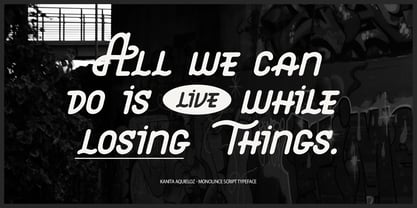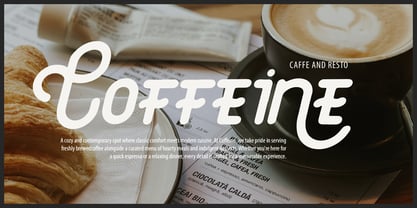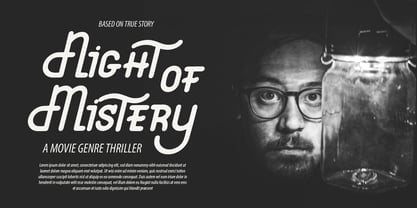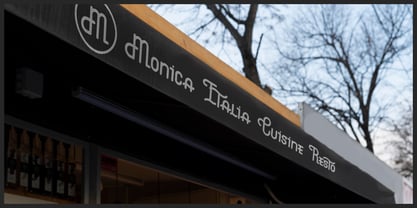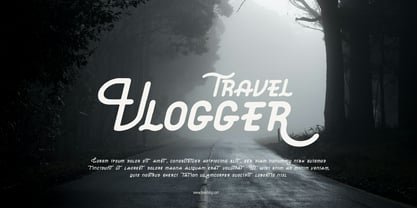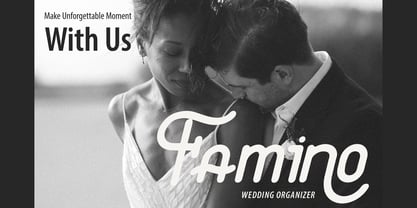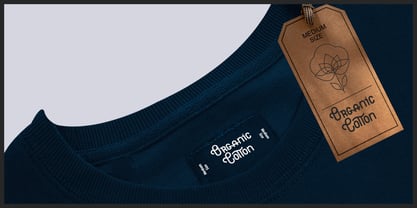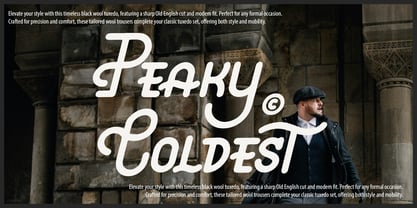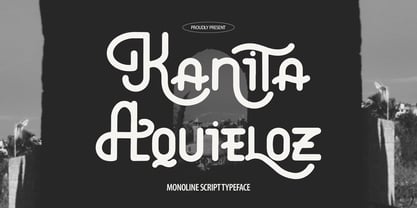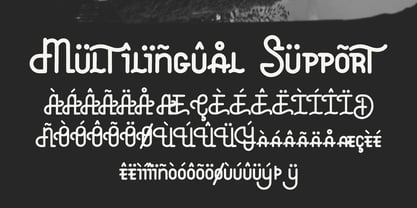
Kanita Aquieloz
by Tini Fitriani
The Kanita Aquieloz Font Family and published by Tini Fitriani. Kanita Aquieloz contains 2 styles and family package options. More about this family
Kanita Aquieloz | Monoline Script Typeface, from Gracetypestudio, suitable for any projects such as: logos, branding projects, homeware designs, product packaging, mugs, quotes, posters, shopping bags, t-shirts, book covers, name card, invitation cards, greeting cards, label, photography, watermark, special events, and all your other lovely projects that need a Monoline Script Typeface taste.
• Regular and Italic
• Standard glyphs
• Alternate and Ligature
• Fonts include multilingual support